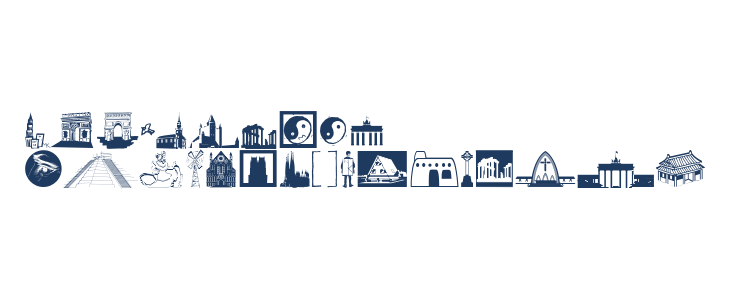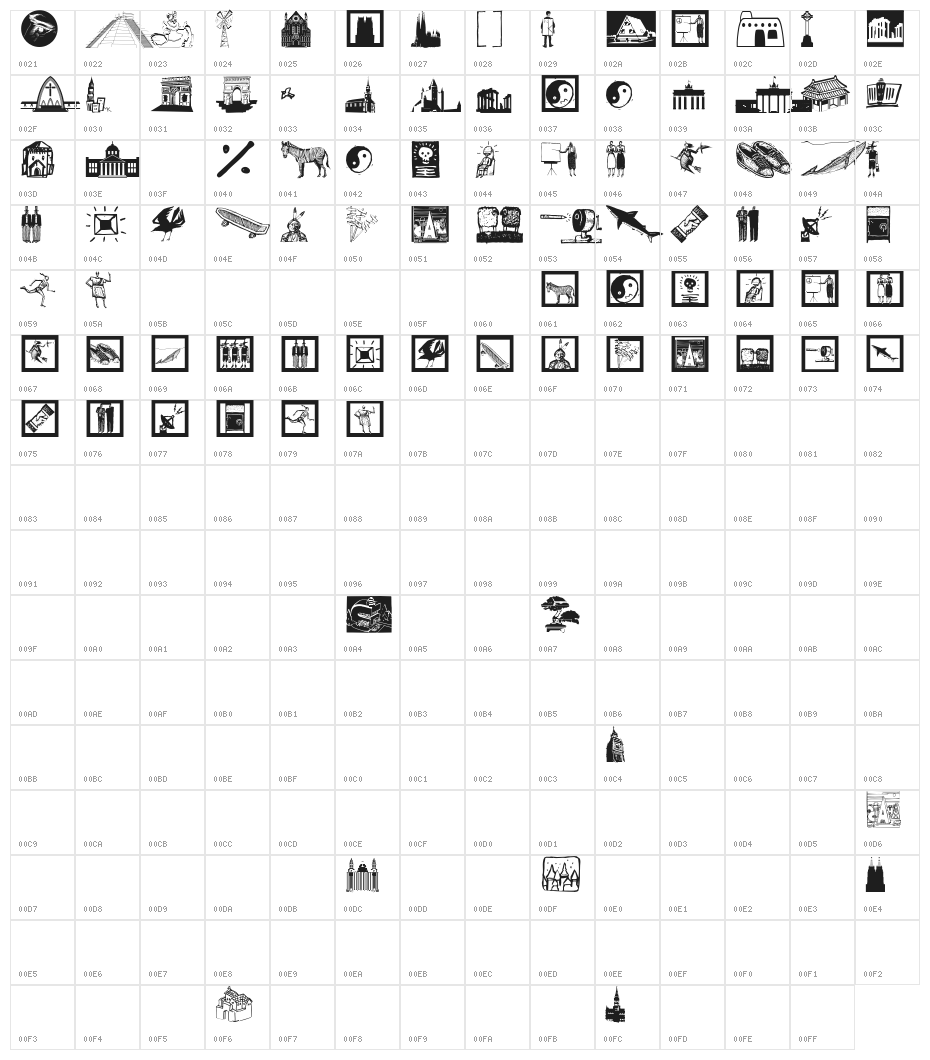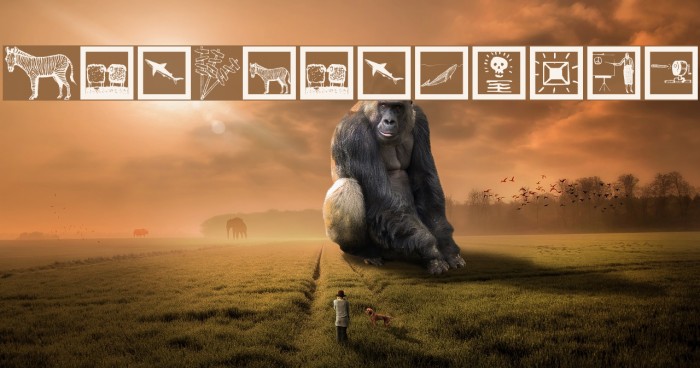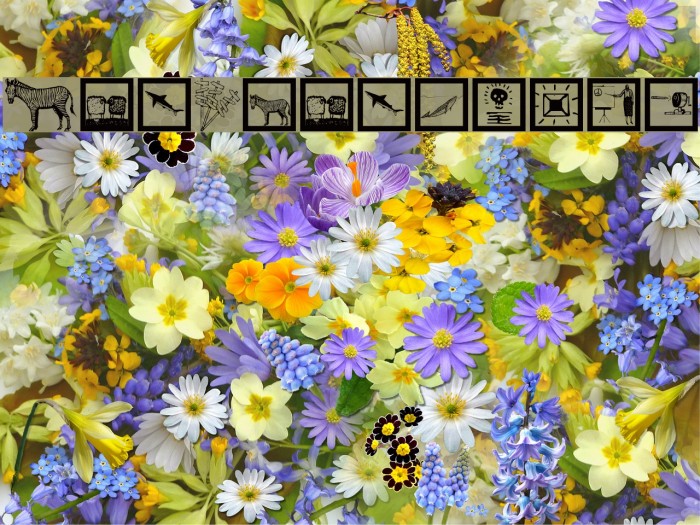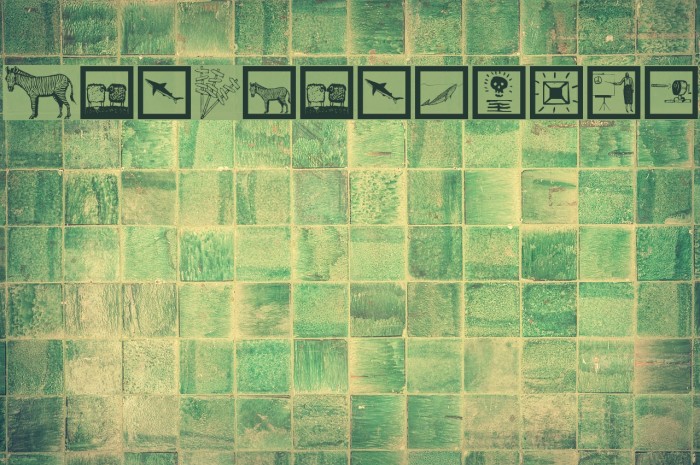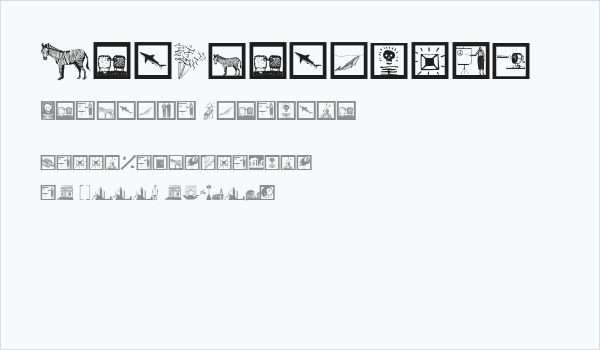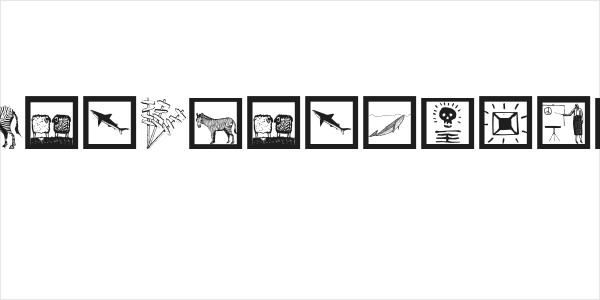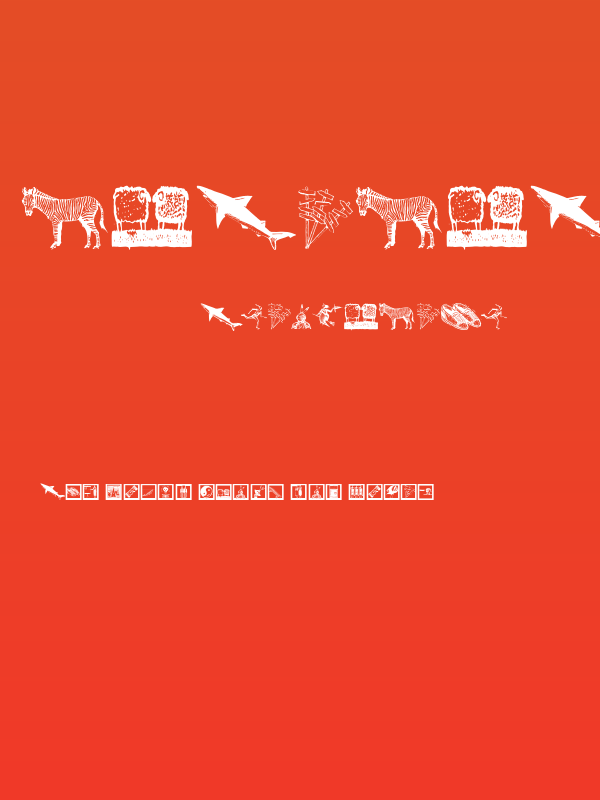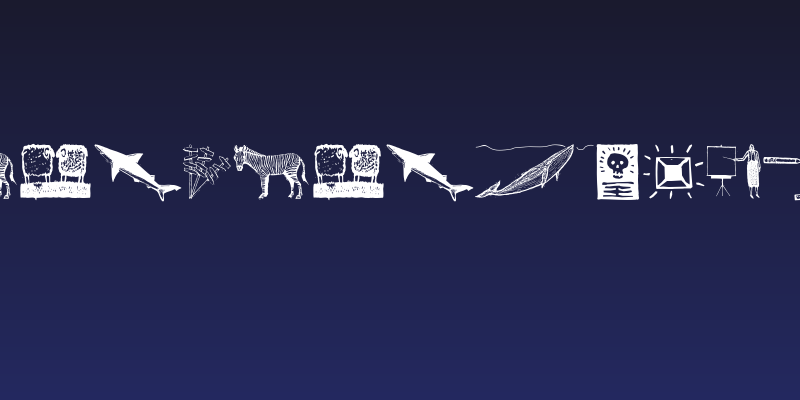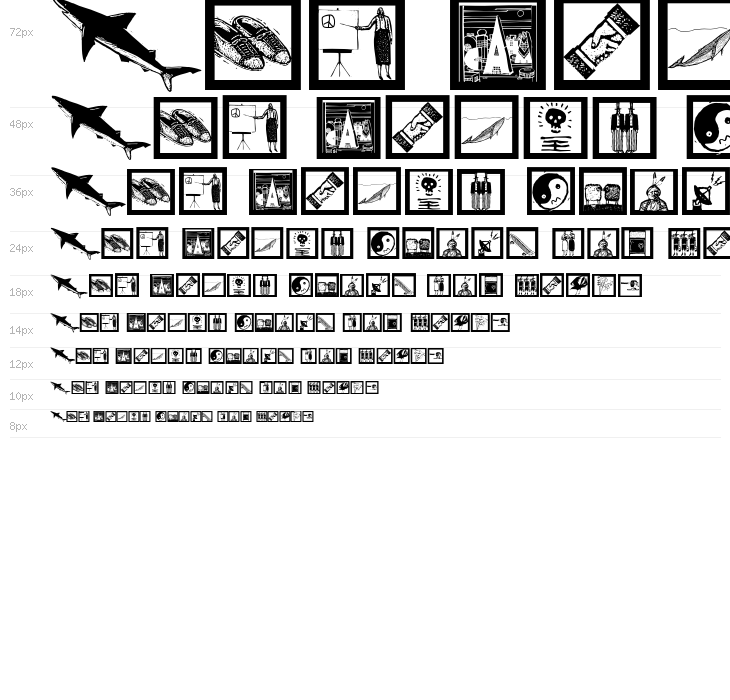
ArtParticles Font
ArtParticles Description
A decorative dingbat font featuring a diverse collection of hand-drawn, black-and-white illustrations including animals, people, objects, landmarks, and symbols. Each glyph is a unique pictogram or scene, rendered with sketch-like line art and varying levels of detail, often enclosed in a square or left open.
| Overall Style | Decorative, Sketch, Hand-drawn |
| Use Case | Icons, Illustrations, Thematic dividers, Visual storytelling |
| Proposed Projects | Infographics, educational materials, travel guides, creative posters, scrapbooking, and themed event invitations. |